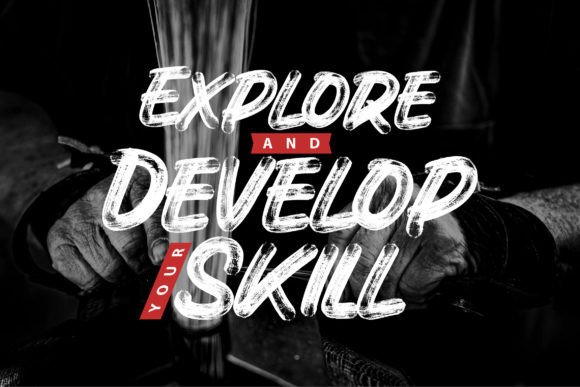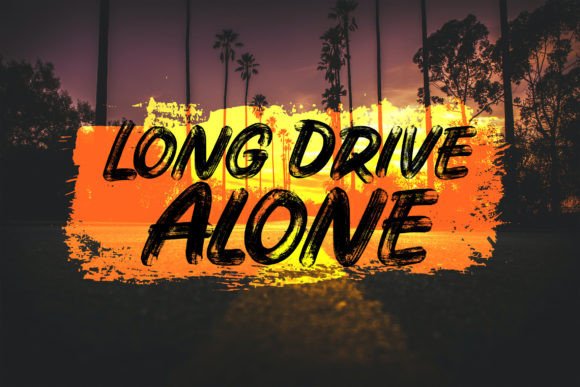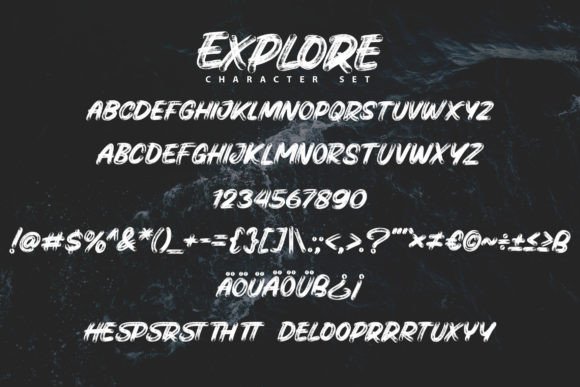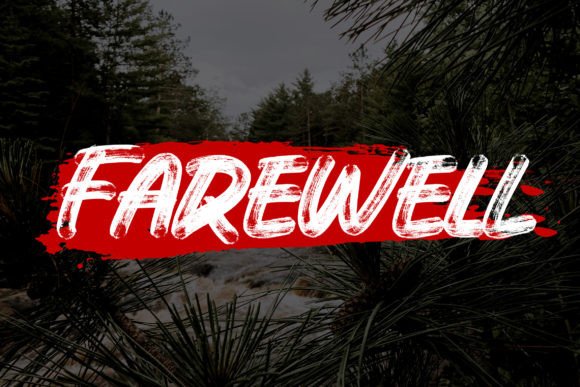
Unlock the Power of Unique Typography
Have you ever stared at a blank canvas, struggling to find the perfect words to bring your vision to life? You’re not alone. Many designers have been there, but the right font can be the difference between a mediocre design and a masterpiece. That’s where Explore Font comes in – a bold, eye-catching display font that’s sure to elevate your creations.
With Explore Font, you’ll never run out of inspiration. Whether you’re designing a logo, creating a social media campaign, or crafting a wedding invitation, this font will add a touch of sophistication and creativity to your work. Its versatility makes it a valuable asset to any designer’s font library, allowing you to explore new possibilities and push the boundaries of your art.
Explore Font Key Features
- Unique Character Set: Explore Font features a unique character set that includes over 1,000 glyphs, including international characters, symbols, and ligatures.
- Multi-Language Support: Explore Font supports multiple languages, including English, Spanish, French, German, Chinese, and many more.
- Scalable: Explore Font is designed to be scalable, making it suitable for use in a variety of applications, from small text to large headlines.
Explore Font Review
Overall, I was excited to dive into the “Explore Font” and see what it had to offer. As a designer, I’m always on the lookout for unique and stylish fonts to enhance my projects.
- The font has a beautiful, modern aesthetic that would be perfect for a variety of projects, from blog posts to advertisements.
- The bold weights are particularly striking, making it ideal for headings and titles.
- The font is highly legible, even at small sizes, which is a must-have for any font in my book.
- The font lacks a clear, consistent style for the italics, which can make it difficult to use in situations where italic text is necessary.
- The font is not as versatile as some other options, with limited language support and no support for certain special characters.
In conclusion, while the “Explore Font” has some great qualities, its limitations hold it back from being a top contender in my book. If you’re looking for a modern, stylish font for a specific project, it might be worth considering. But for more general use, I’d recommend exploring other options.
Explore Font is ideal for:
- Use Explore Font for headings and titles to add a sense of wonder and curiosity.
- Experiment with different font styles and sizes to convey a sense of movement and freedom.
- Pair Explore Font with watercolor illustrations or hand-drawn maps to create a whimsical and dreamy atmosphere.
- Use a combination of bold and cursive text to emphasize key destinations and experiences.
- Include photographs and ticket stubs to add a touch of authenticity and memorabilia.
- Use Explore Font for headings and subheadings to add a sense of curiosity and discovery.
- Experiment with different font styles and sizes to highlight key information and create visual hierarchy.